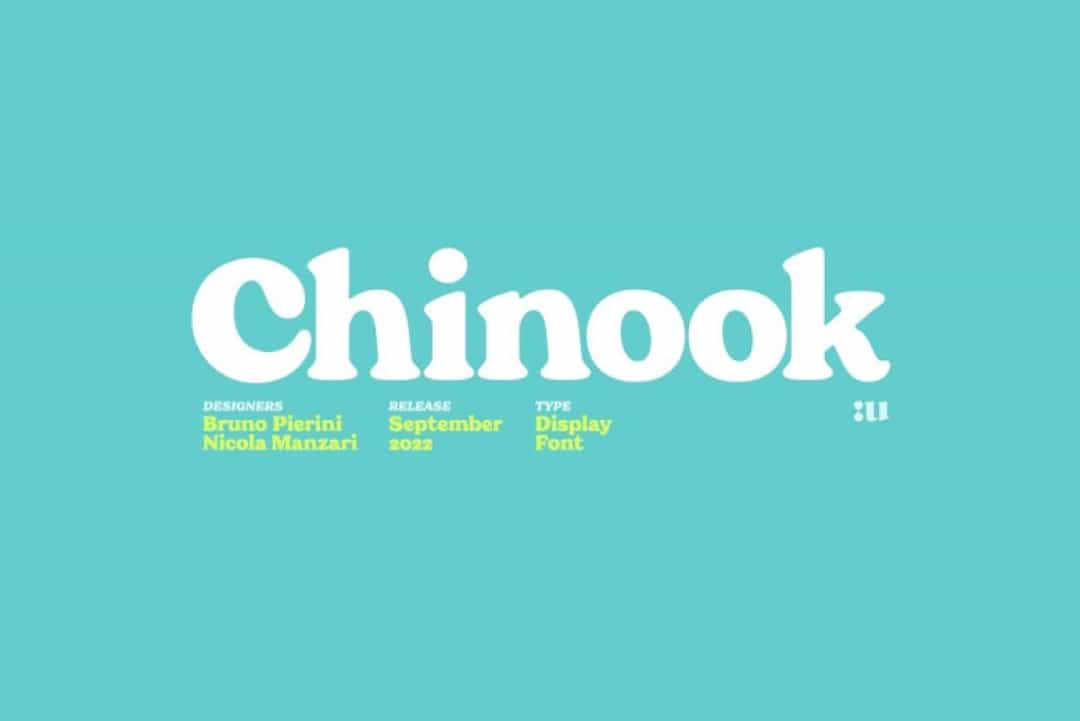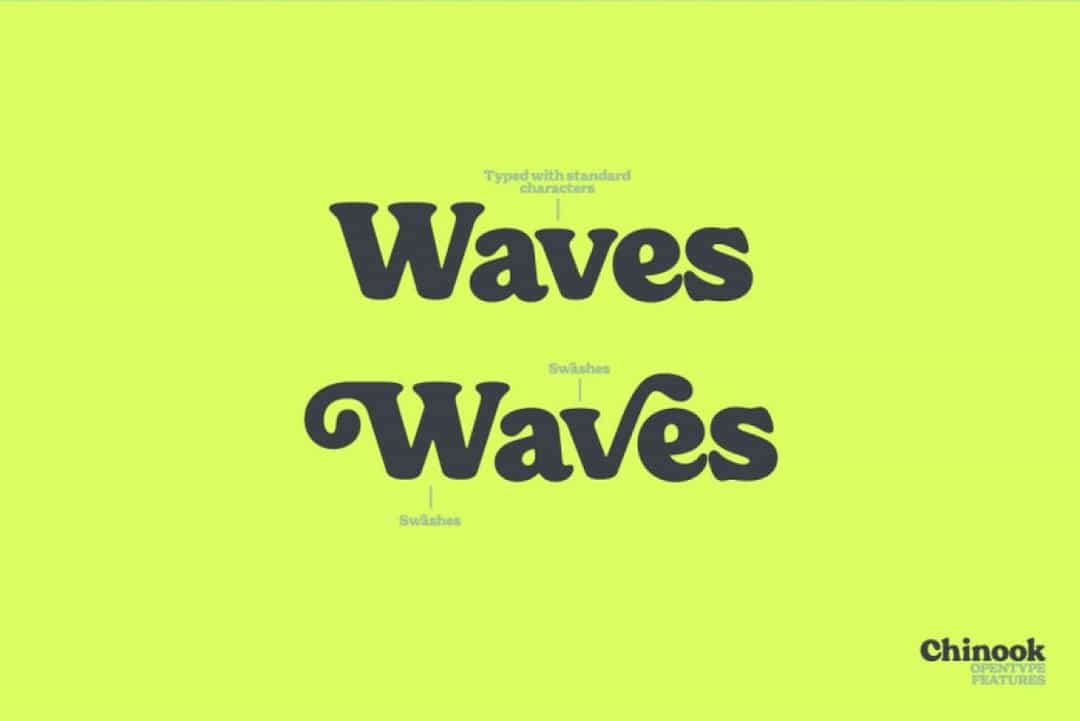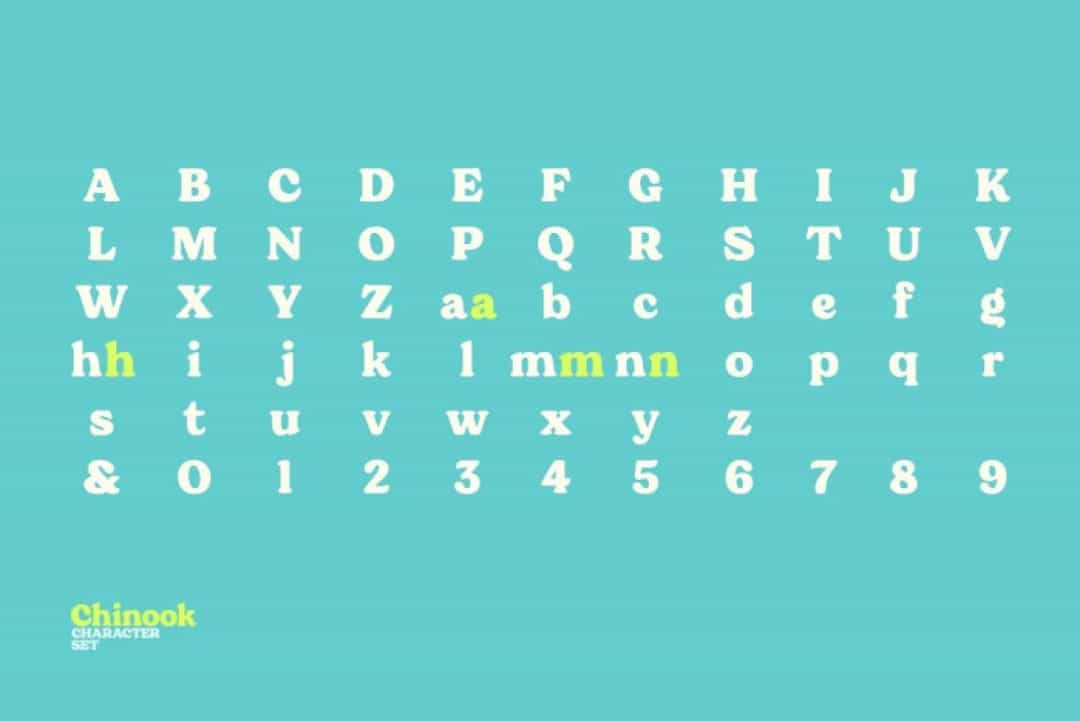
Chinook was created to pay tribute to the classic, big and slender aesthetic of Italian movie titles from the 70s and 80s. However, its soft yet balanced typography allows it to easily fit in to modern-day settings without its vintage vibes being overwhelming. While inspired by “Cooper Black,” more contemporary letter forms with rounded serifs as well as its overall fluffy appearance give this font its modern edge.